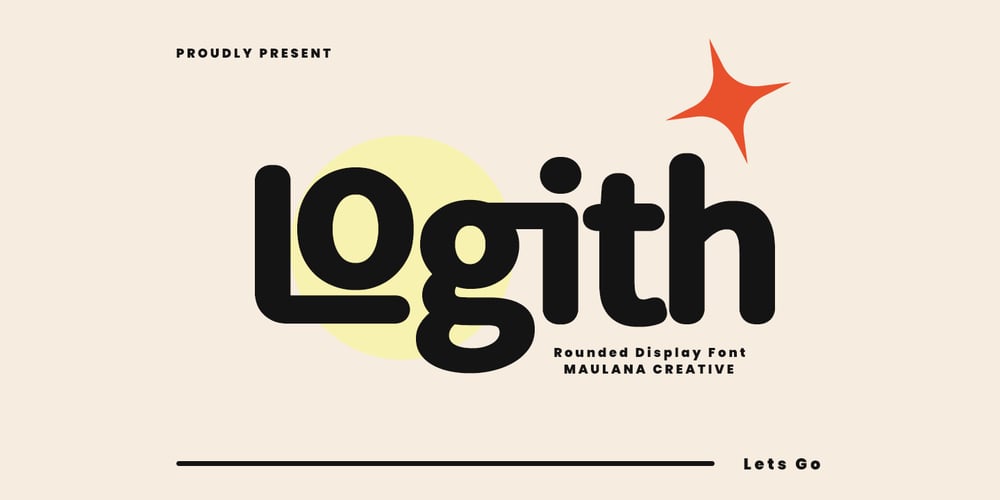
MC Logith
MC Logith font
MC Logith Font Family was designed by Gilang Maulana and published by Maulana Creative. MC Logith contains 1 styles and family package options. Logith is a rounded sans serif display font. Awesome character with a ligatures and alternate. To give you an extra creative work. Logith font support multilingual language. This font is good for logo design, Social media, Movie Titles, Books Titles, a short text even a long text letter and good for your secondary text font with sans or serif. Make a stunning work with Logith font.Cheers,Maulana Creative